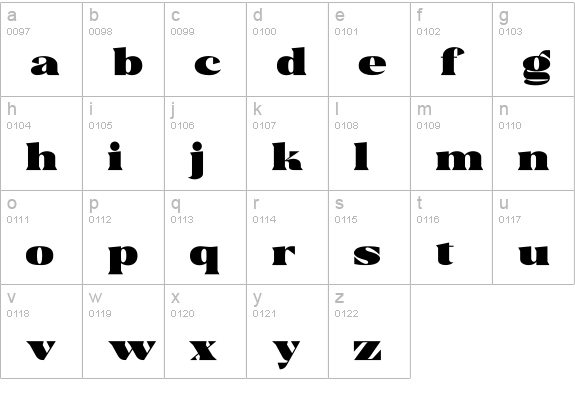
Trellis Bold Serif Font Details
Trellis Bold Serif is a strong, high-contrast variant in the Trellis typeface family \xE2\x80\x94 well suited to headlines, attention-grabbing titles, and strong calls-to-action.
Introducing Trellis Bold Serif font, a striking and versatile typeface that exudes elegance and sophistication. With its bold and commanding presence, Trellis Bold Serif is perfect for making a statement in any design project. Its sharp serifs and strong lines give a sense of authority and professionalism, making it ideal for branding, editorial design, and more.